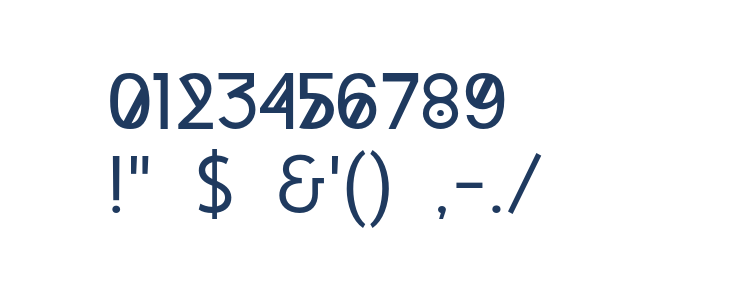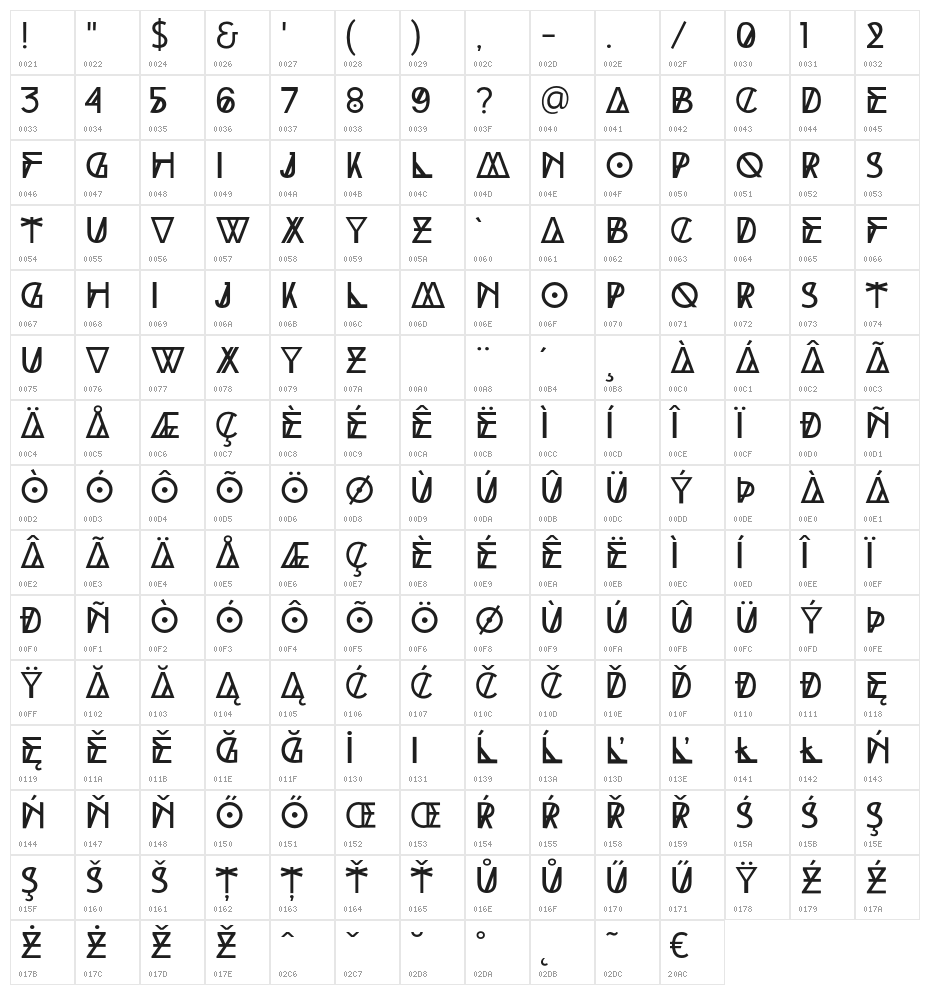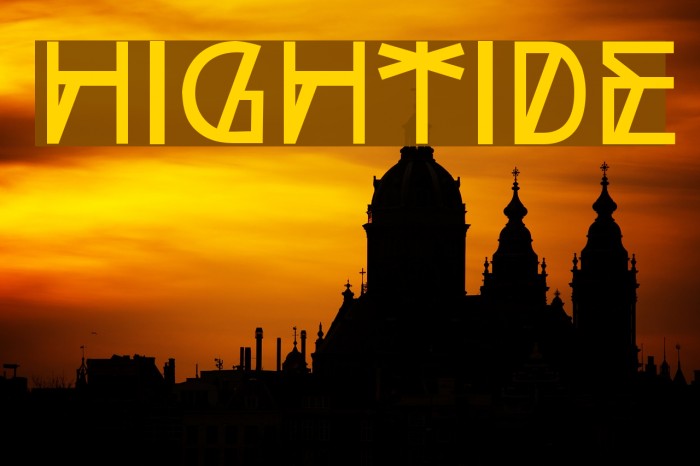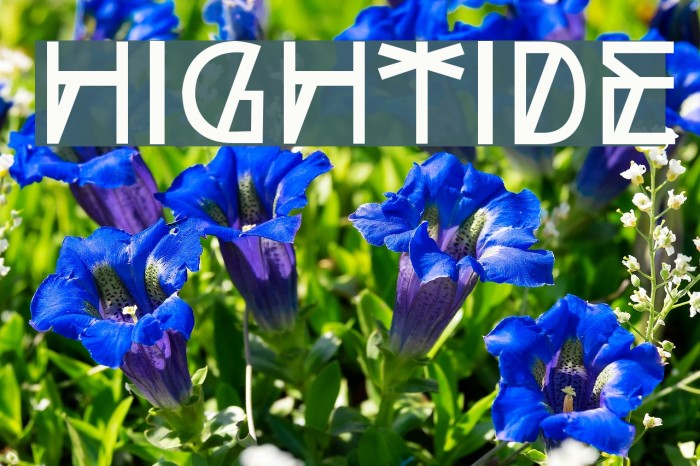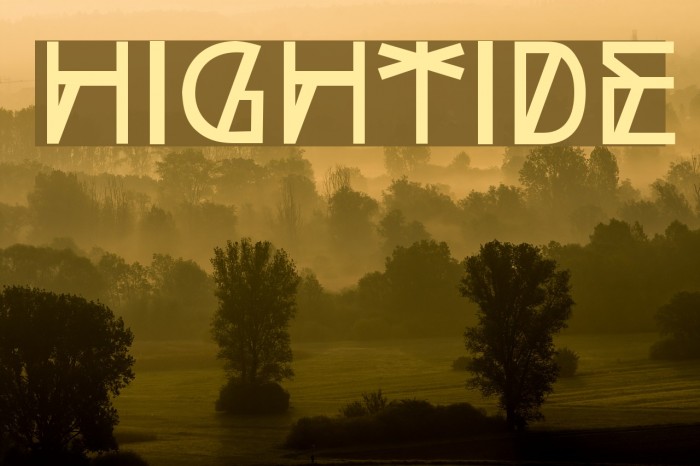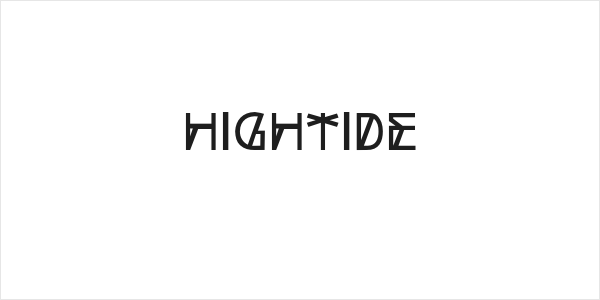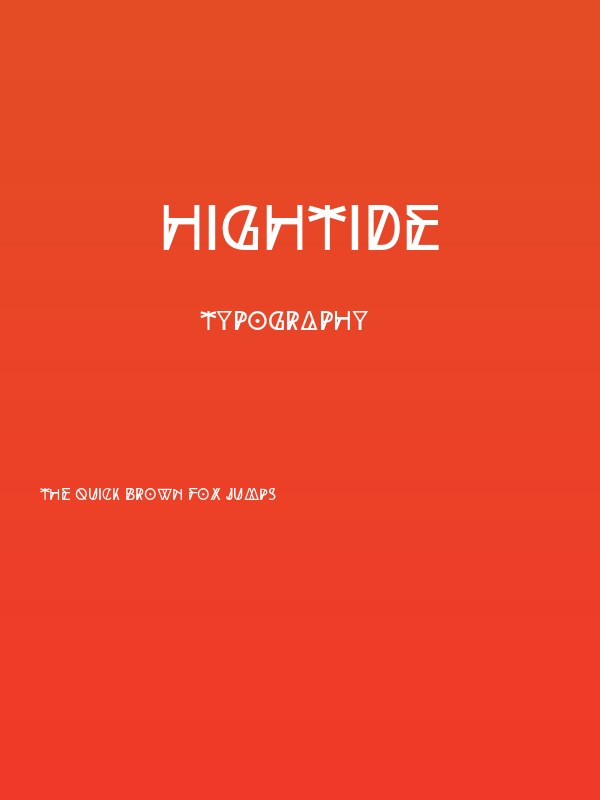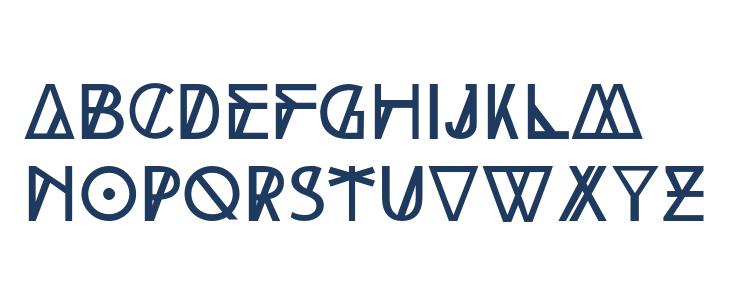
HighTide Font
This font features a bold and geometric design with a unique, angular style. Each character is crafted with sharp edges and distinct shapes, creating a futuristic and modern appearance. The uppercase letters exhibit a strong presence, while the lowercase letters maintain the same angular theme, providing consistency throughout the typeface. Numbers are equally bold and follow the geometric pattern, ensuring readability and style. Special characters are designed to match the overall aesthetic, making this font suitable for various creative applications.
| Proposed Projects | Ideal for branding, posters, album covers, and any project requiring a futuristic or edgy look. |